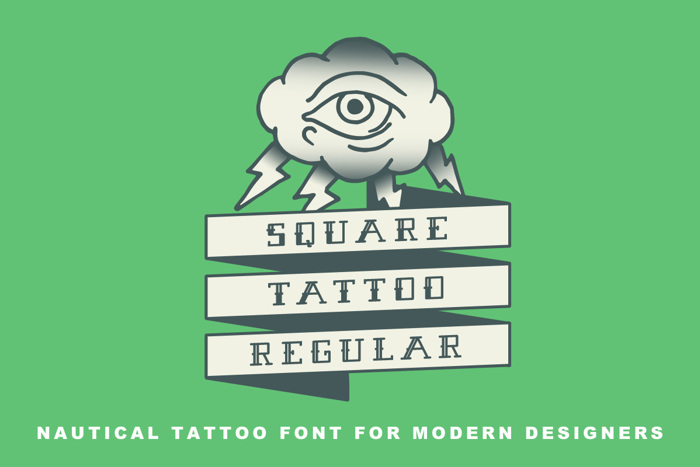
Square Tattoo Demo Font
Square Tattoo Regular is a modular nautical tattoo font designed using our classic athletic font Second Base Line. Square Tattoo Font features modular nautical tattoo letterforms similar to our Sailor Scrawl and Sailor's Fat Tattoo fonts. We recommend Square Tattoo Regular for product design, logo design, and website headings.
Square Tattoo Regular features open inline characters in the uppercase, and half-filled characters in the lowercase. We've included numbers (open inline), AE, and 'thorn'.